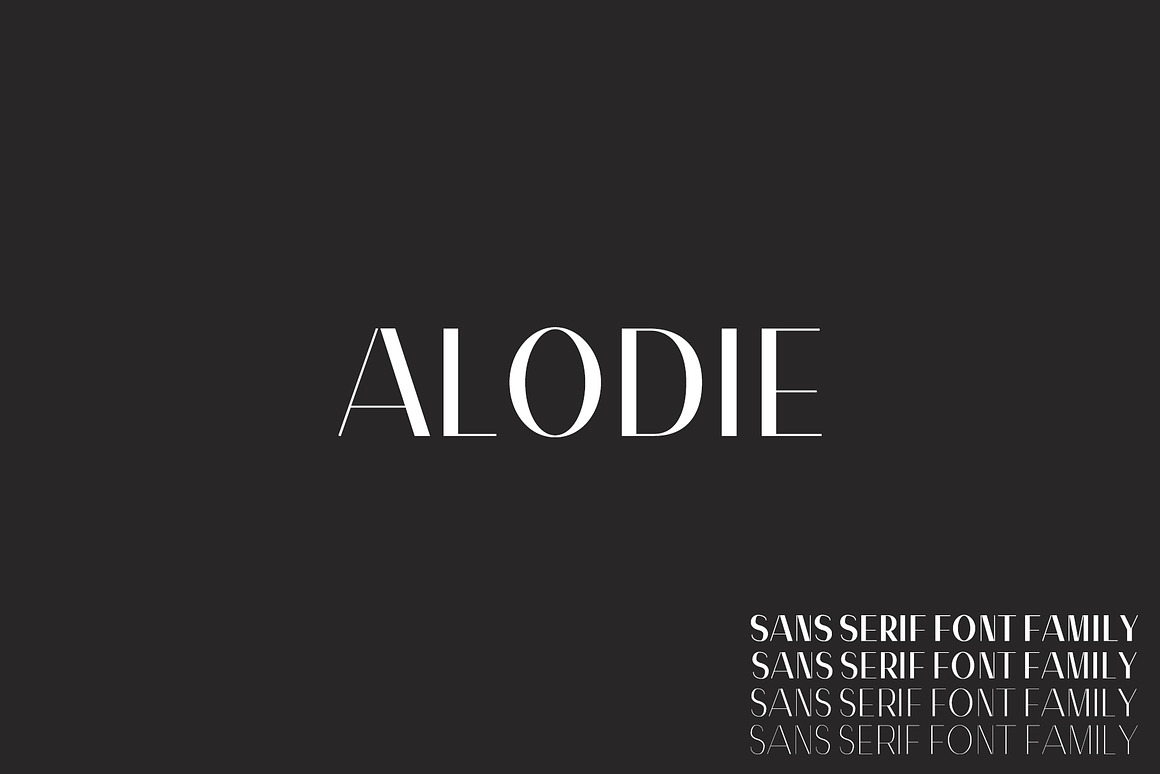
Alodie Sans Serif 4 Font Family Pack
Alodie Sans Serif 4 Font Family Pack is perfect for modern corporate branding, clean website interfaces, professional mobile applications, contemporary signage systems, business presentations, startup communications, digital marketing materials, and streamlined product packaging.
Alodie Sans Serif 4 Font Family Pack is exciting because it combines geometric precision with humanist warmth, featuring optimized letterforms and balanced proportions that deliver exceptional clarity while maintaining approachable professionalism. Its clean architecture ensures superior performance across all contemporary digital and print platforms.
Alodie Sans Serif 4 Font Family Pack family includes light, regular, medium, and bold weights, each carefully crafted to maintain visual harmony while providing comprehensive typographic flexibility for diverse communication needs and brand applications.
Alodie Sans Serif 4 Font Family Pack Free Download provides access to premium typography engineered for today's multi-platform communication landscape. This expertly crafted typeface collection demonstrates superior technical execution through its perfectly balanced character spacing and cross-device optimization that ensures consistent brand representation across all media formats. The font's neutral yet distinctive personality makes it ideal for technology companies, consulting firms, healthcare organizations, and creative agencies seeking professional visual identity solutions that balance innovation with reliability.
Digital designers consistently select Alodie Sans Serif 4 Font Family Pack for its exceptional versatility in both screen-based and print applications. The font's optimized character spacing and contemporary styling ensure excellent legibility across various contexts while maintaining distinctive personality that supports strong brand recognition. Its comprehensive weight range accommodates diverse communication needs from detailed technical documentation to impactful headline applications.
The Alodie Sans Serif 4 Font Family Pack download includes extensive language support, professional symbols, and specialized punctuation marks for international business compatibility. This broad character coverage ensures seamless implementation across global markets and multilingual projects. The font's technical precision and consistent baseline alignment create polished layouts that reflect organizational attention to quality and professional standards.
Contemporary businesses appreciate Alodie Sans Serif 4 Font Family Pack's ability to communicate modernity while maintaining professional credibility and user accessibility. Its balanced personality works equally well in conservative corporate environments and progressive creative contexts, making it an indispensable typography resource for organizations seeking to establish trustworthy, contemporary brand presence through superior typographic communication and reliable visual performance.